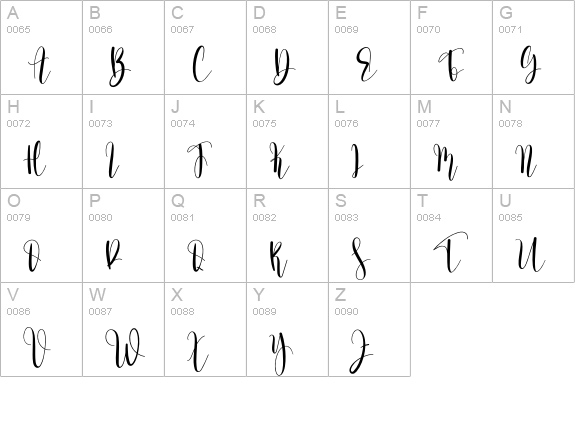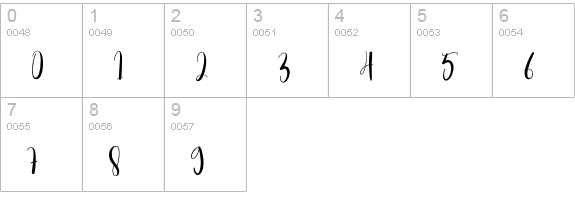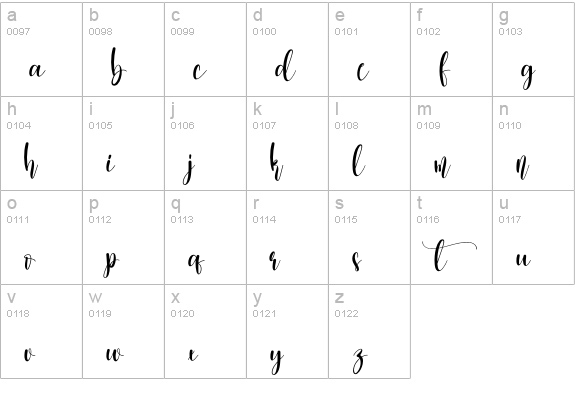
Homework2 Font Details
Homework2 is a free for personal use font in the Script > Handwritten category, designed by scratchones. It has been downloaded 4 times and is available for Windows, Mac and Linux.
Introducing Homework2 font, a versatile and modern typeface that is perfect for all your design projects. This font features clean lines and a contemporary feel, making it ideal for everything from logos to posters to web design. With its sleek and stylish appearance, Homework2 font is sure to make your work stand out.